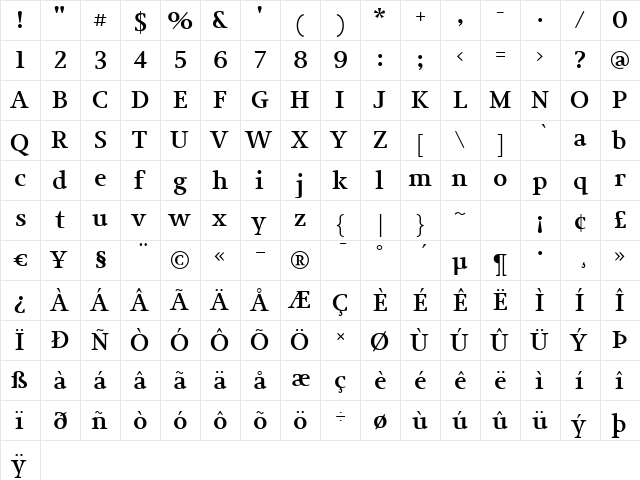
JudeBoldLiningNumbers Regular
JudeBoldLiningNumbers is a composed and adaptable typeface that performs quietly and consistently across a wide range of design contexts. Its bold stroke weight gives it real presence on the page.